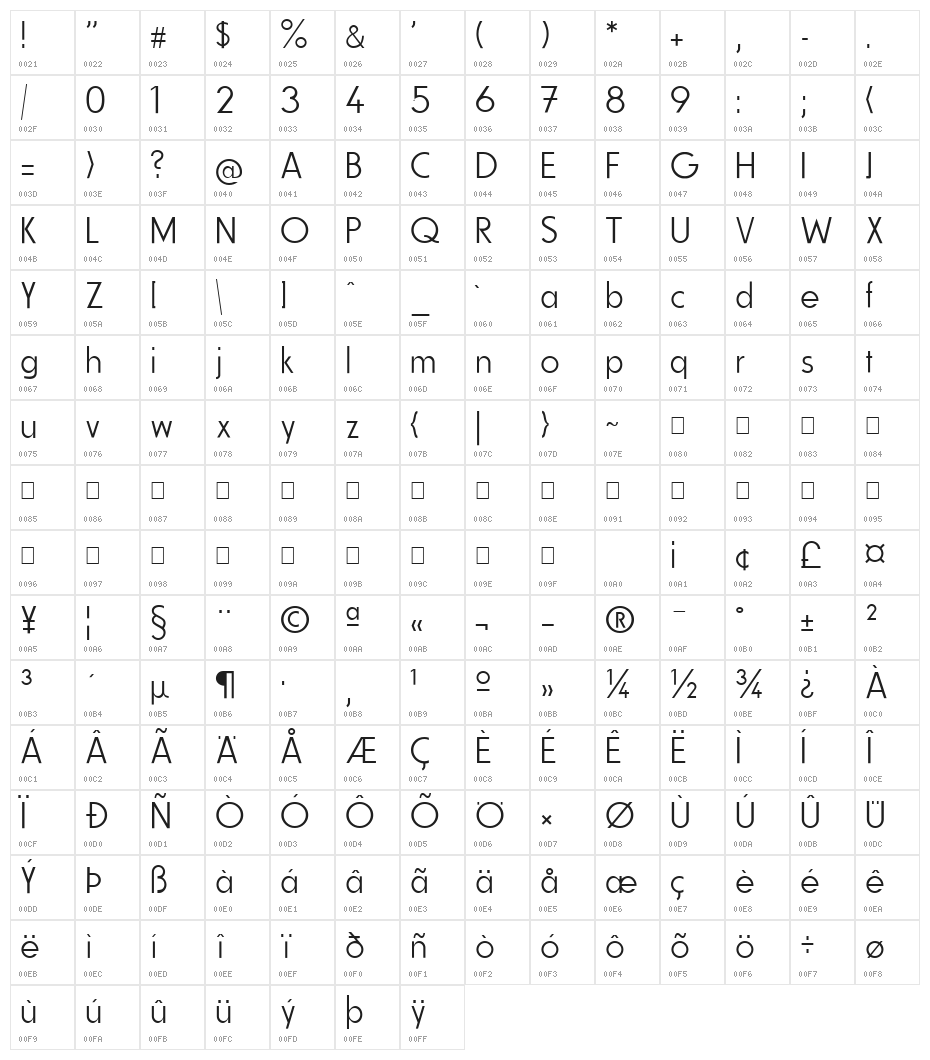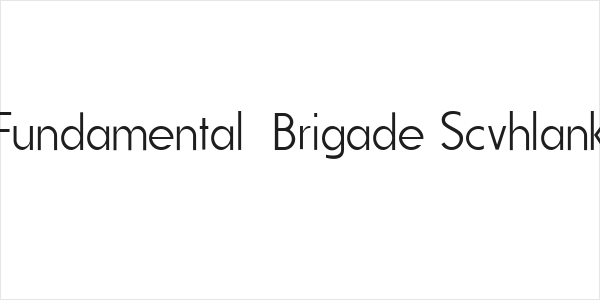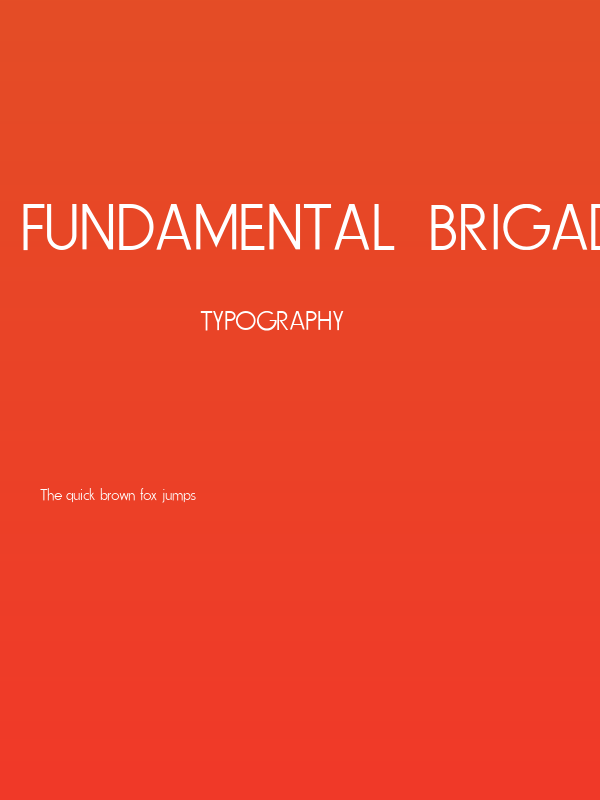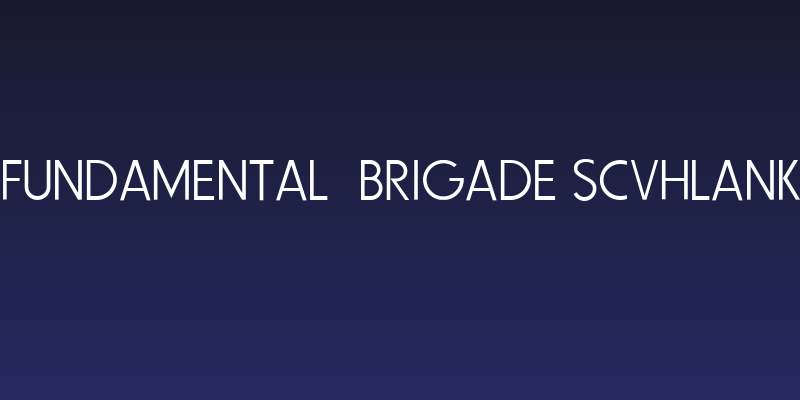
Fundamental Brigade Scvhlank Font
Fundamental Brigade Scvhlank Description
This font embodies a clean and modern aesthetic with its sleek, sans-serif design. The characters are uniformly structured, offering a harmonious balance between form and function. The uppercase letters are bold and commanding, while the lowercase letters maintain a consistent flow, enhancing readability. The numerals are clear and distinct, making them ideal for both digital and print formats. Special characters are well-integrated, ensuring versatility across various applications. The overall design is minimalistic yet impactful, suitable for contemporary design needs.